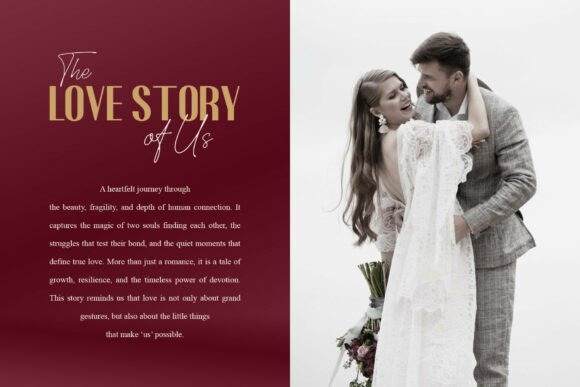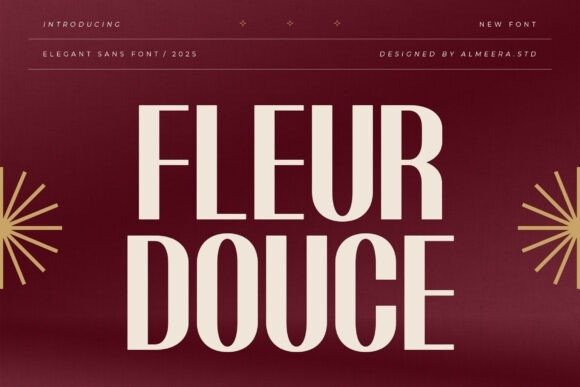
Fleur Douce Font
Fleur Douce Font is an elegant sans serif font with refined proportions and graceful shapes. Designed for projects that need a touch of sophistication, it’s ideal for fashion branding, invitations, packaging, magazines, and creative digital works. Fleur Douce offers a balance between simplicity and elegance, giving designs a polished and timeless look.